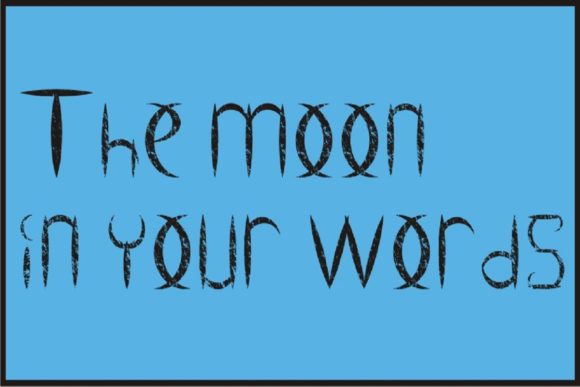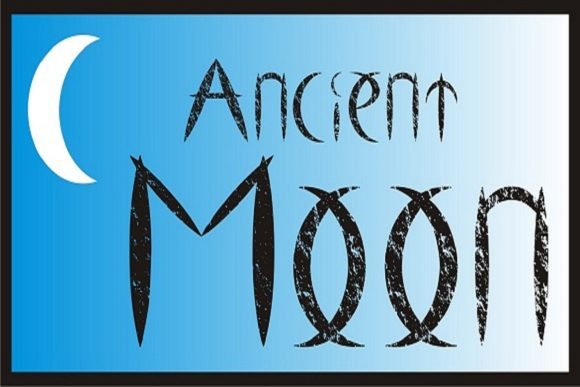
A Spark of Inspiration: Unveiling Ancient Moon Font
Have you ever stared at a blank canvas, waiting for that elusive spark of creativity to strike? It’s a moment we’ve all been in – the blank page staring back at us, taunting us to create something beautiful. For designers, this moment can be particularly daunting, but what if I told you there’s a font that can help ignite that spark and bring your creative vision to life?
Meet Ancient Moon Font, a striking and modern decorative font that draws inspiration from the celestial beauty of the moon. With its unique design, Ancient Moon Font is the perfect tool to elevate any creative project, from posters and advertisements to digital art and more. For designers, this font is a valuable asset, offering a versatile and eye-catching way to add depth and personality to their work.
- Unique Characteristics: Ancient Moon Font features a unique blend of ancient and mystical elements, with intricate details and ornaments, making it perfect for fantasy, sci-fi, and historical designs.
Ancient Moon Font Review
I must say, Ancient Moon Font has some wonderful qualities that caught my attention. ✨ The unique blend of elegance and mysticism is quite captivating. The font’s curves and lines evoke a sense of ancient mysticism, making it perfect for titles, headings, and other design elements where you want to create a sense of mystique.
- ✨ Distinctive and memorable design
- ✨ Suitable for a wide range of design projects, from mystical to elegant themes
- ✨ Highly customizable to suit different design needs
However, there are some limitations that might affect its usability:
- ⚠️ Limited font sizes: The font might not be suitable for very large or very small font sizes
- ⚠️ Limited legibility: The intricate design might make it difficult to read at a glance
Overall, Ancient Moon Font is a beautiful and unique font that can add a touch of mysticism to your designs. While it has some limitations, it’s definitely worth considering for the right projects. With some careful planning and customization, you can unlock its full potential and create stunning designs that will leave a lasting impression.
Use the Ancient Moon Font for titles, headings, and other decorative text elements to add a touch of elegance and sophistication to your designs.
Alternatives to Ancient Moon Font for Designers
Lato Font is a modern sans-serif font that can be used for a wide range of designs, from headings to body text. It is suitable for digital and print materials. Compared to Ancient Moon Font, Lato Font is more minimalist and clean, making it ideal for modern designs that require a touch of sophistication. Use Lato Font for websites, apps, and corporate materials.
Playfair Display Font is a luxurious serif font that is perfect for high-end designs, such as luxury brands, fashion magazines, and wedding invitations. It has a more elegant and sophisticated feel compared to Ancient Moon Font, making it ideal for designs that require a touch of elegance. Use Playfair Display Font for high-end brands, luxury products, and special events.